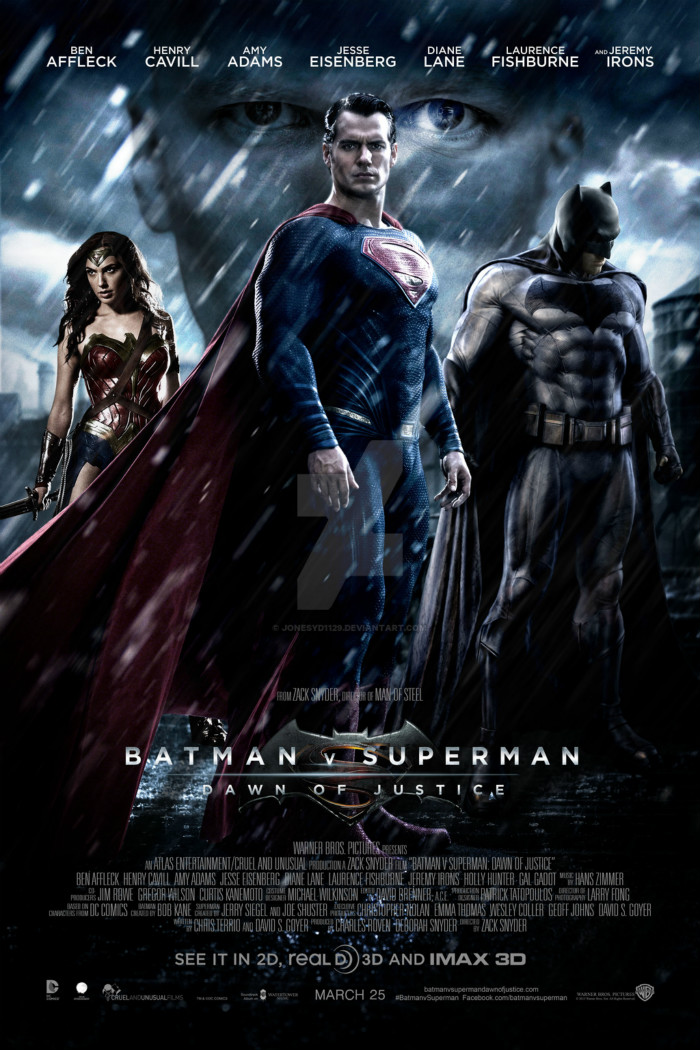
Batman v Superman Font
AdventureBatman v Superman: Dawn of Justice is a 2016 American superhero film featuring the DC Comics Batman and Superman. Directed by Zack Snyder and distributed by Warner Bros. Pictures, the film is a follow-up to 2013’s Man of Steel and is the second installment in the DC Extended Universe. In the film, Bruce Wayne, a billionaire, believes that Superman is a menace to humanity after his battle in the city. Thus, he decides to don the mantle of Batman and finish him once and for all. In the poster, Gotham Bold is used for the film title.
Tobias Frere-Jones created the geometric sans serif font in 2000. For details about the typeface, you can visit typography.com.